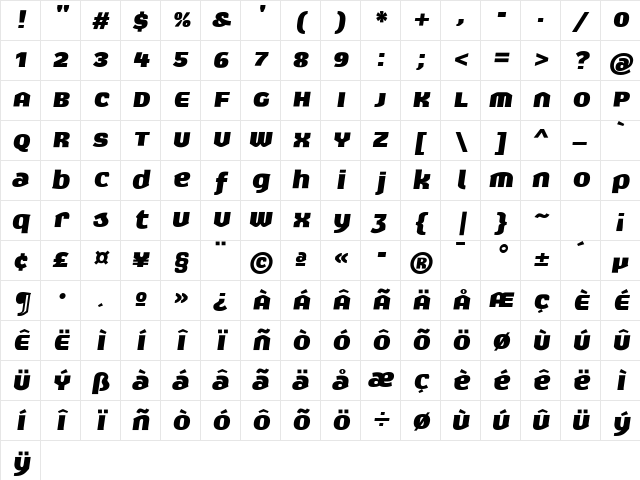
Exert Medium Italic
Exert Family
Exert Medium Italic
Complete Exert Medium Italic glyph index. Displaying only characters natively supported by Exert Medium Italic font.
Design Context for Exert
Exert is a composed and adaptable typeface that performs quietly and consistently across a wide range of design contexts. The slanted form adds forward momentum and visual energy.